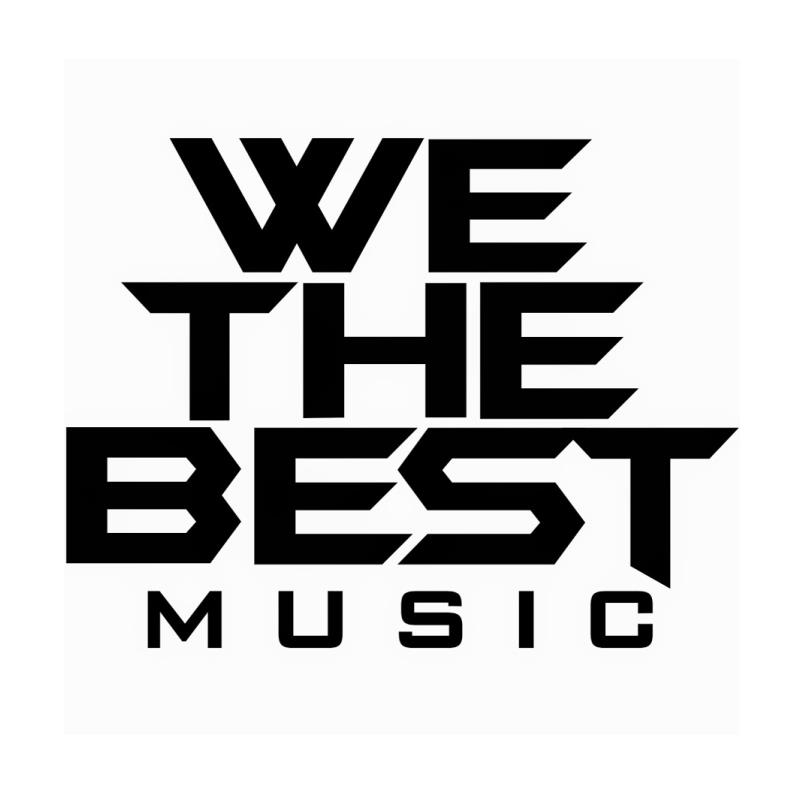
We the Best Font
EntertainmentWe the Best Music is a Miami-based record label founded by DJ Khaled in 2005. The label has signed numerous successful artists, including Rick Ross, Ace Hood, and Fat Joe, and is known for its signature sound of contemporary hip hop and R&B.
The logo of the record label ''We the Best Music'' features a font that is comparable to Batman Forever and is available for free download in the Fonts Used Section. The word "Music" at the bottom appears to be a personalized variation of Bank Gothic.